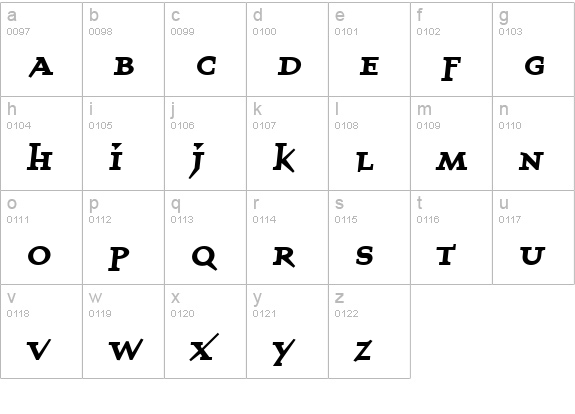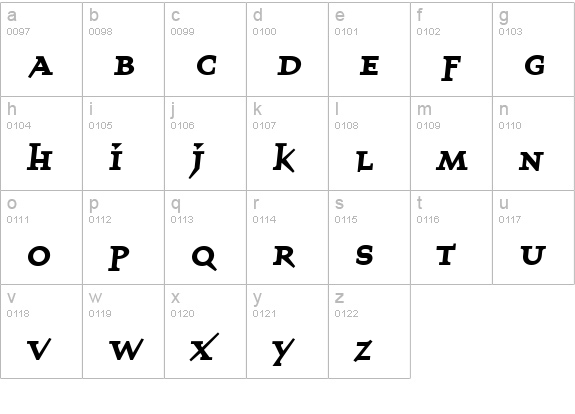
QuartetSmallcapsBold Bold Font Details
QuartetSmallcapsBold Bold is a strong, high-contrast variant in the QuartetSmallcapsBold typeface family \xE2\x80\x94 well suited to headlines, attention-grabbing titles, and strong calls-to-action.
QuartetSmallcapsBold Bold font is a stunning typeface that effortlessly combines elegance with a touch of playfulness. With its bold and attention-grabbing design, this font is perfect for making a statement in your designs. The QuartetSmallcapsBold Bold font is freely available to download at FontsMarket.com, allowing you to add a touch of sophistication to your projects without any cost. Its unique and eye-catching characteristics make it suitable for a wide range of applications, such as logo design, branding, headlines, and more. This font's small caps style adds a charming and creative twist to your text, making it stand out from the crowd. Whether you're designing a poster, invitation, or any other form of visual communication, QuartetSmallcapsBold Bold font will bring a sense of professionalism and creativity to your work. Its clean and precise letterforms ensure legibility, even at smaller sizes, making it a versatile choice for both print and digital projects. The bold weight adds impact and emphasis, making your words truly pop off the page. Download the QuartetSmallcapsBold Bold font for free at FontsMarket.com and unlock the potential to enhance your designs with its contemporary and stylish appeal. Don't miss out on this opportunity to elevate your typography game and captivate your audience with this remarkable and freely available typeface.